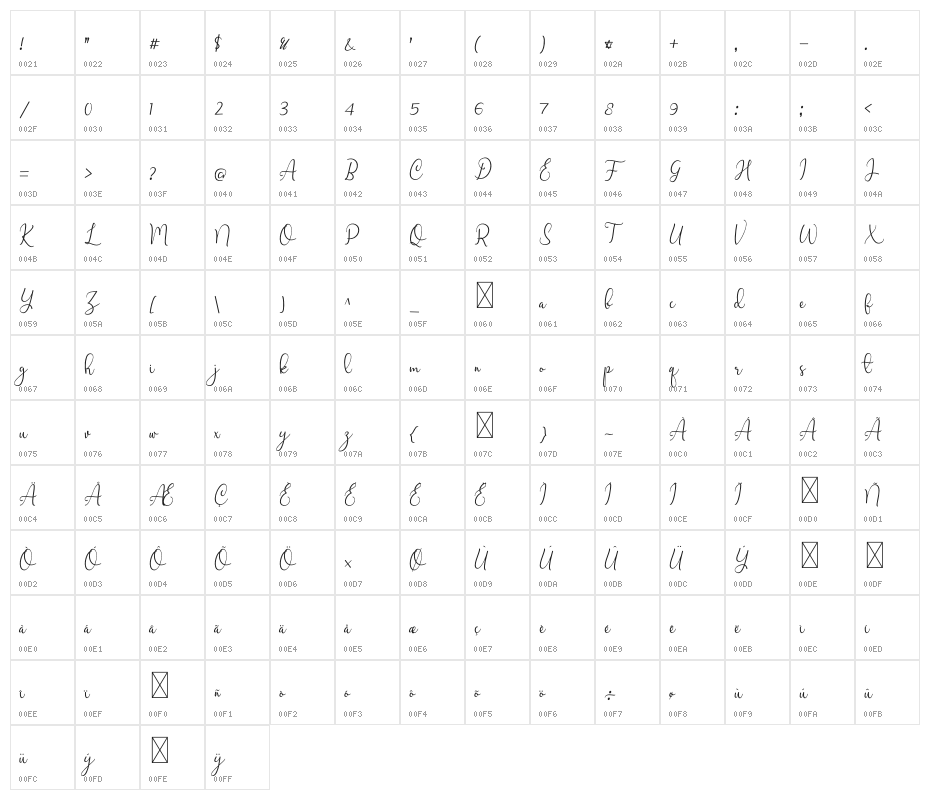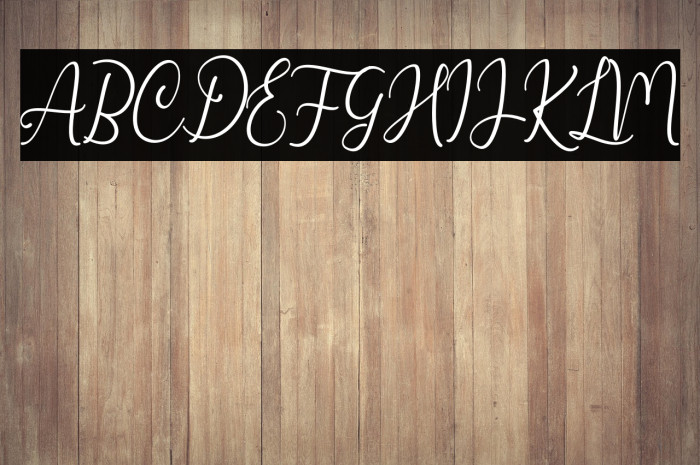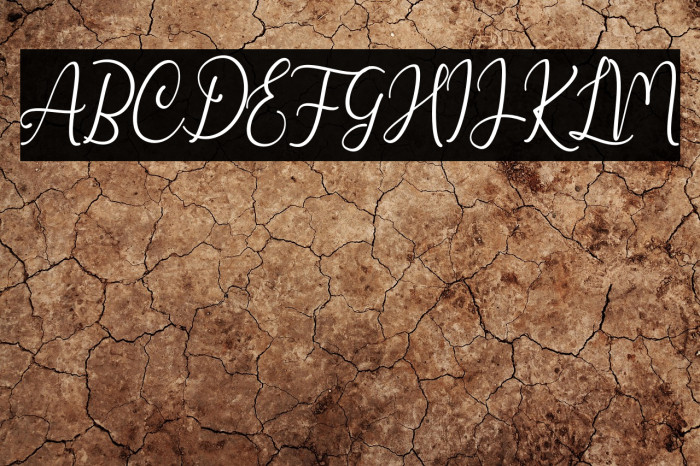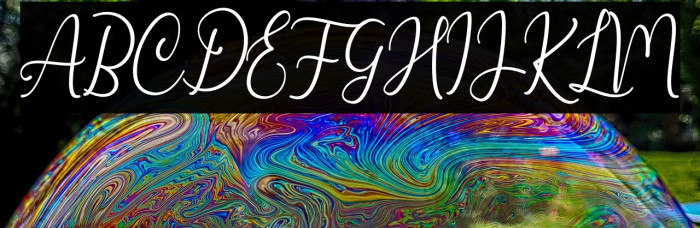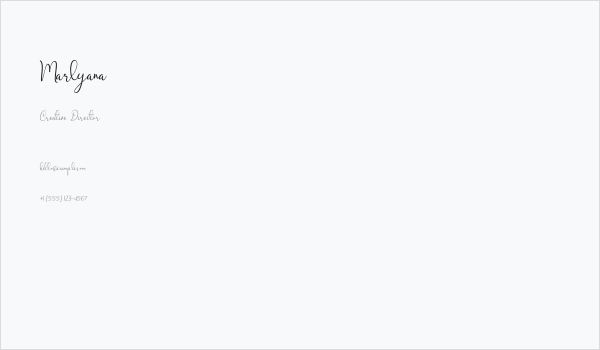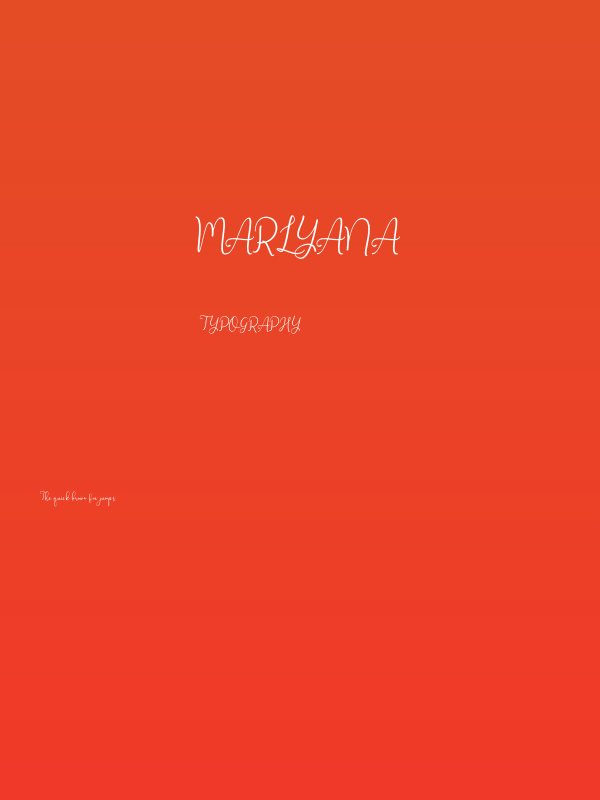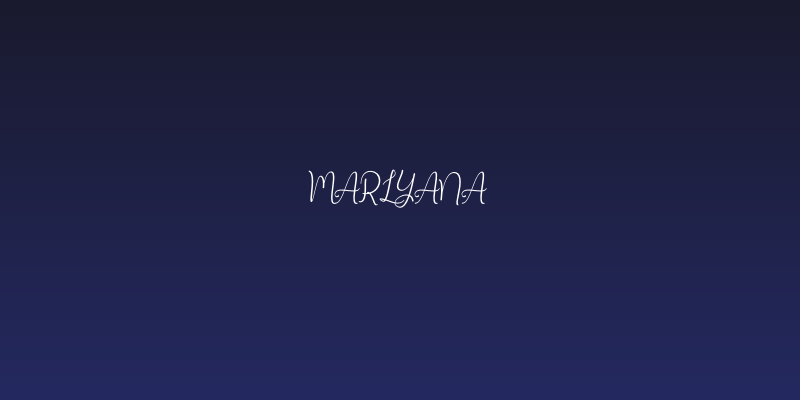
Marlyana Font
Marlyana Description
This elegant script font features flowing, cursive letters with a modern touch. The uppercase characters are tall and graceful, with sweeping curves and loops that give them a sophisticated appearance. The lowercase letters maintain a consistent style, with smooth connections and a slightly more casual feel. The numerals are clear and stylish, complementing the overall design. Special characters are thoughtfully crafted, adding to the font's versatility. This font is perfect for projects that require a touch of elegance and personality.
| Proposed Projects | Ideal for wedding invitations, branding, greeting cards, and elegant logos. |